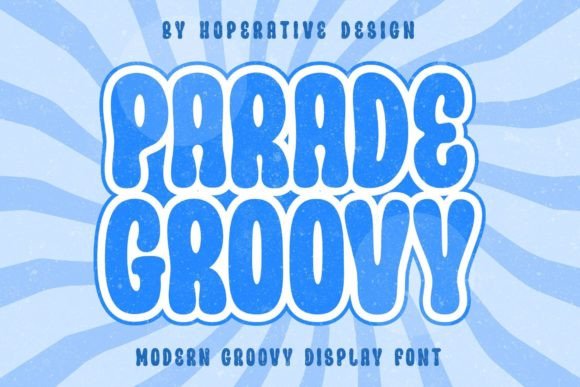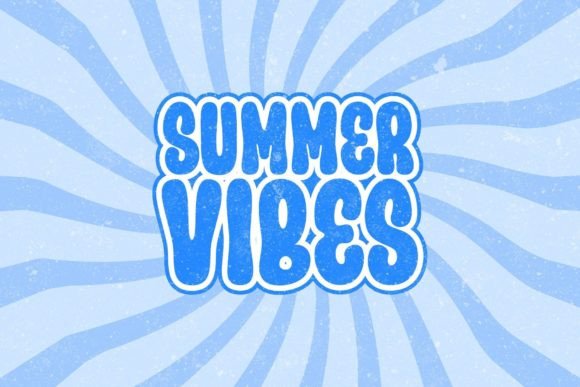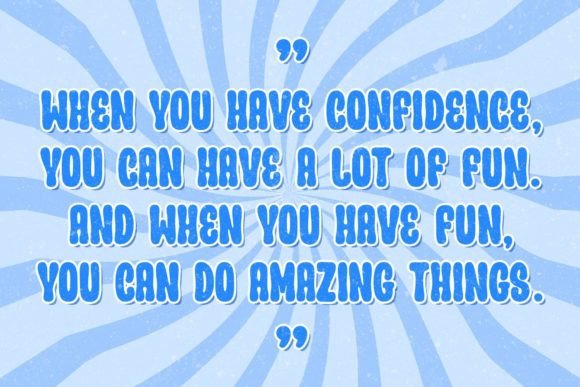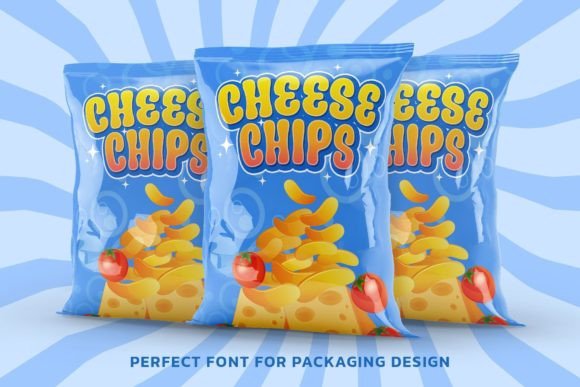
Parade Groovy Font
About the Parade Groovy Font
Add a touch of class to your work with the Parade Groovy Font, a truly exceptional typeface. Parade Groovy is a modern and groovy display font perfect for creating t-shirts, stickers, cover books, children’s books, social media posts, invitations, and much more!
Parade Groovy’s bold, playful energy makes it ideal for headlines, posters, and branding projects targeting a youthful or fun-loving audience. It excels in short, impactful text settings such as logos, social media graphics, and packaging where its distinctive character can shine. Avoid using it for body text or lengthy paragraphs; its highly stylized forms are less legible at smaller sizes.
Pairing it with a clean sans-serif like Open Sans for body copy creates a strong visual contrast, balancing Parade Groovy’s playful energy with a sense of readability. Alternatively, a classic serif such as Garamond can add sophistication, grounding the design and enhancing its overall visual appeal. For a more cohesive feel, consider pairing it with a similarly retro-inspired font.
Its retro-inspired design makes it a great choice for projects with a vintage, 70s vibe, or those aiming for a nostalgic feel. Brands focused on music, fashion, or entertainment would find Parade Groovy particularly effective.
Parade Groovy Font Usage Examples
Parade Groovy Font Example